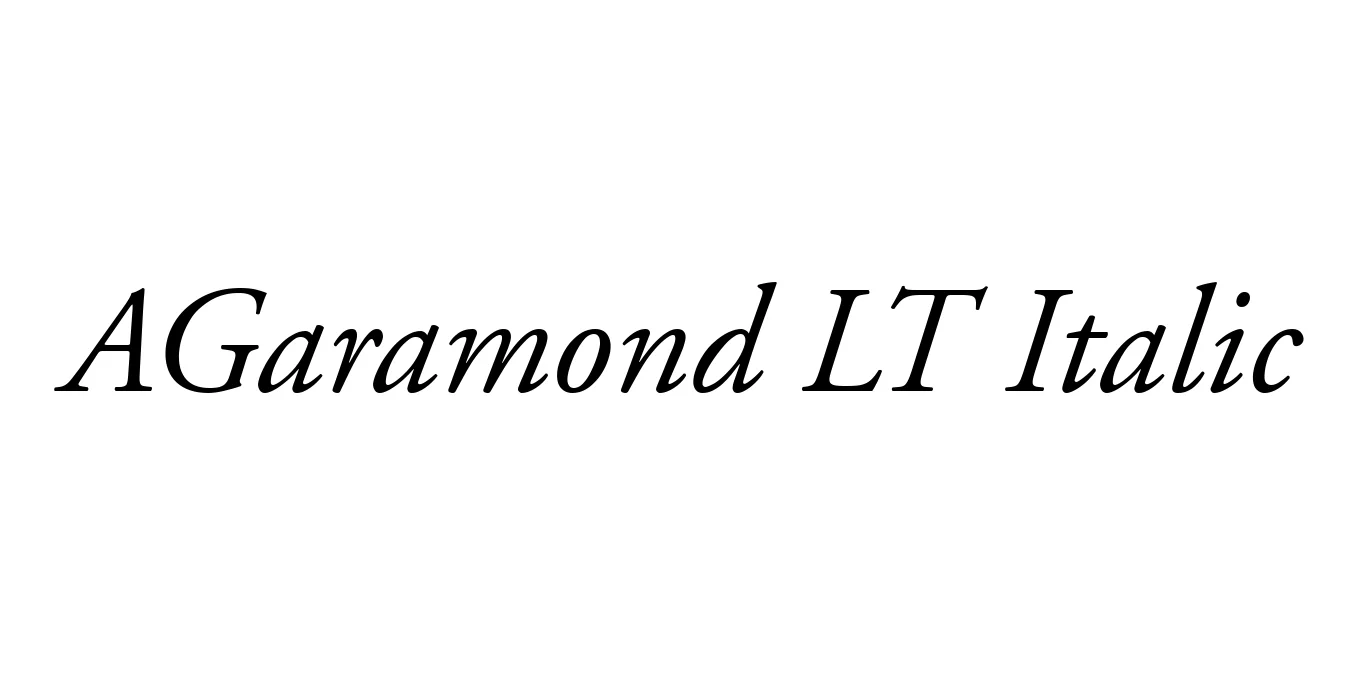
AGaramond LT Italic
Designed by Robert Slimbach
AGaramond LT Italic is a refined digital revival of the 16th-century Roman types of Claude Garamond and the italics of Robert Granjon. Released by Adobe in 1989 and designed by the renowned Robert Slimbach, this typeface is considered one of the most faithful and versatile interpretations of the Garamond legacy. It captures the warmth and readability of the Renaissance era while meeting the technical demands of modern digital typesetting.
The italic weight specifically highlights the calligraphic elegance and rhythmic flow characteristic of Granjon's work. It is widely praised for its organic forms and subtle contrast, making it a staple in premium book design, literary journals, and high-end editorial work. Its timeless nature ensures that it remains as relevant today as it was during the height of the French Renaissance, offering a sense of authority and understated luxury to any project.
AGaramond LT Italic Best Uses
The industry standard for long-form body text in novels and academic journals.
Perfect for high-end fashion or heritage brands seeking a timeless aesthetic.
Ideal for wedding invitations and sophisticated event programs.
Provides a professional and readable look for magazine features and layouts.